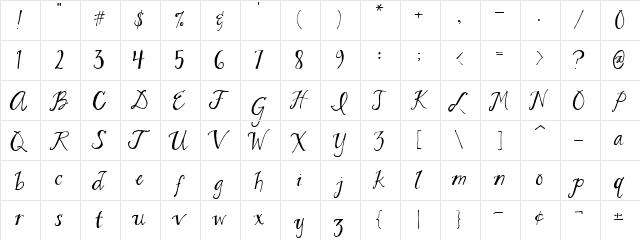
2Peas Miss Manners Regular Font Preview
2Peas Miss Manners Regular
2Peas Miss Manners Regular Font Details
Design Context for 2Peas Miss Manners Typeface
2Peas Miss Manners is a composed and adaptable typeface that performs quietly and consistently across a wide range of design contexts.